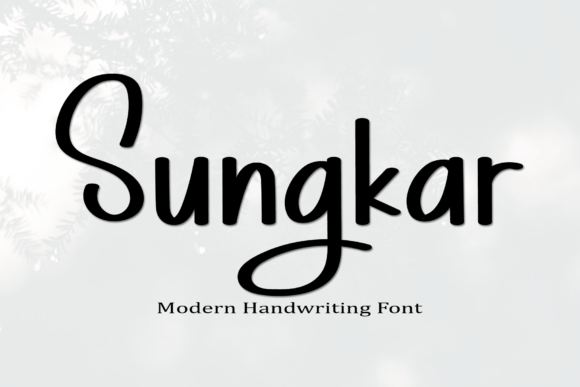
Introducing Sungkar Font: The Quintessential Handcrafted Script for Mobile Gaming Excellence
In the realm of mobile gaming, visual aesthetics play a crucial role in captivating players and immersing them in the virtual world. Sungkar Font, a meticulously crafted script typeface, emerges as the ultimate choice for game developers seeking to elevate their creations to new heights of visual appeal.
With its elegant curves, playful strokes, and a touch of whimsy, Sungkar Font breathes life into mobile game interfaces, logos, and promotional materials. Its distinctive style adds a layer of charm and personality, setting your game apart from the crowd.
Let's delve into the reasons why Sungkar Font is the perfect companion for your mobile gaming masterpiece:
1. **Unleash Your Creativity:** Sungkar Font's versatile nature allows you to unleash your creativity and explore endless design possibilities. Experiment with different colors, textures, and effects to create logos that pop, captivating headlines that demand attention, and user interfaces that exude sophistication.
2. **Capture the Essence of Play:** Sungkar Font's playful and carefree style perfectly captures the essence of gaming. Its handwritten strokes evoke a sense of nostalgia and familiarity, reminding players of the joy and excitement of childhood pastimes.
3. **Immerse Players in Your Game World:** Sungkar Font's organic and flowing lines create a sense of movement and energy, drawing players deeper into the game world. Its unique letterforms add depth and texture to your designs, enhancing the overall gaming experience.
4. **Stand Out from the Competition:** In the saturated mobile gaming market, differentiation is key. Sungkar Font's distinct and memorable appearance sets your game apart from the rest, ensuring that it leaves a lasting impression on players.
5. **Create a Cohesive Brand Identity:** Sungkar Font's timeless appeal extends beyond mobile games. Use it to create a cohesive brand identity across all your marketing channels, from social media to website design. Its versatility ensures a consistent and recognizable brand presence.
6. **Engage Your Audience:** Sungkar Font's charm and personality shine through in every design, engaging your audience and creating a connection with your brand. Its ability to evoke emotions and create a sense of familiarity makes it a powerful tool for building a loyal fan base.